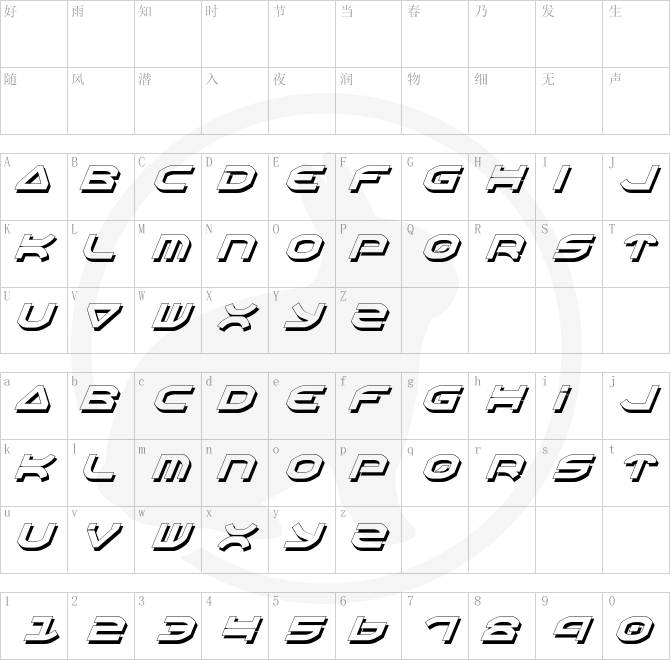
- Font Name:Oberon Shadow Italic
Oberon-Shadow-Italic.ttf is a very beautiful artistic font, Oberon-Shadow-Italic.ttf is widely used in the design and printing of various books and pictures,Oberon-Shadow-Italic.ttf has a strong visual impact,Oberon-Shadow-Italic.ttf is a commonly used font in newspapers, magazines and books, and is used in posters, e-commerce Poster design, store design, logo design, font design and other fields.Oberon-Shadow-Italic.